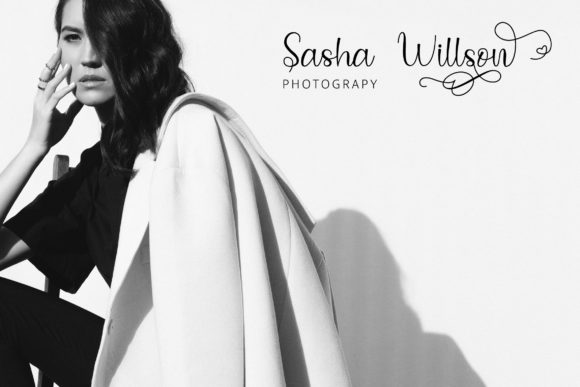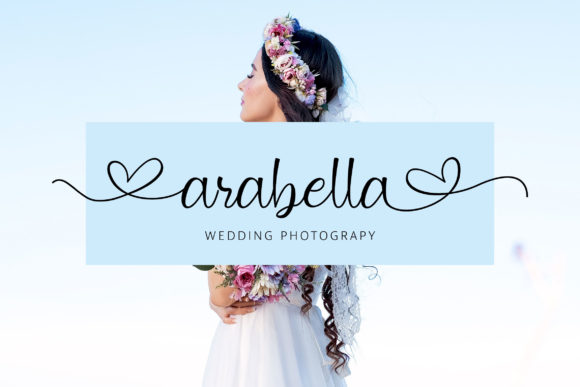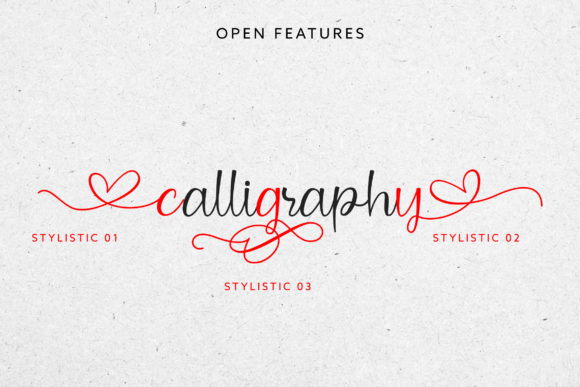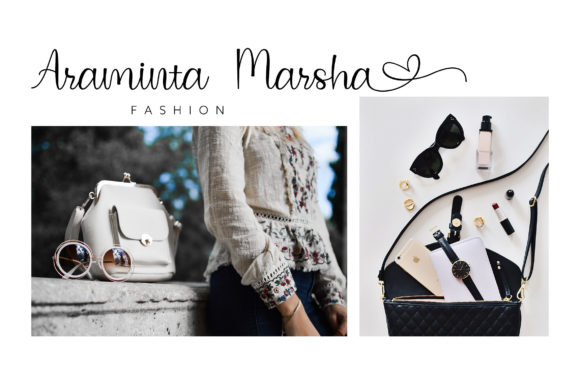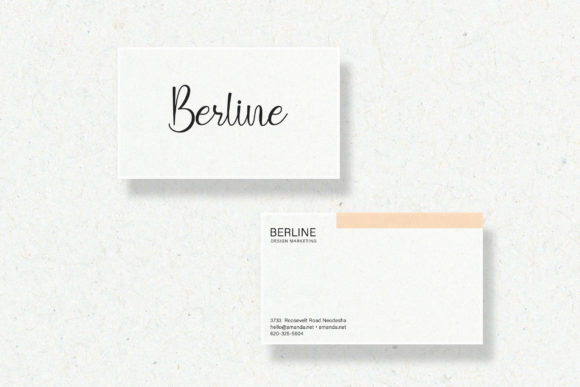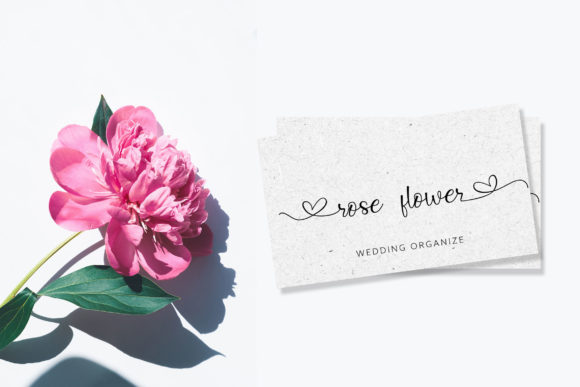
Introduction to Kindlovely Font
Kindlovely is a delicate and thin handwritten font.
It looks stunning on wedding invitations, thank you cards, quotes, greeting cards, logos, business cards and every other design which needs a handwritten touch It features a varying baseline, smooth lines, gorgeous glyphs and stunning alternates.
Key Features of Kindlovely Font